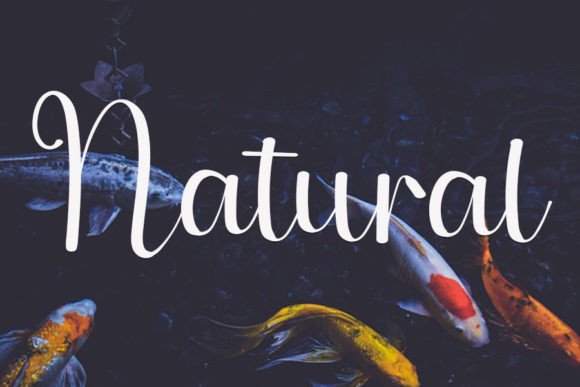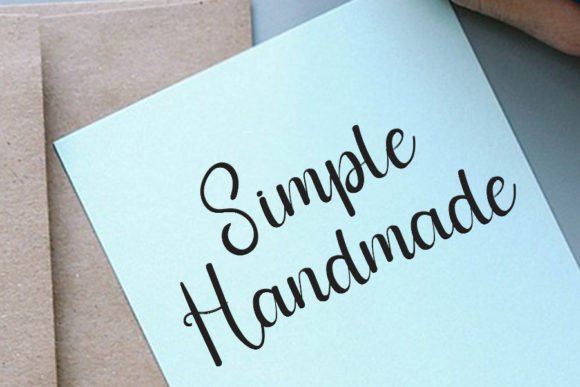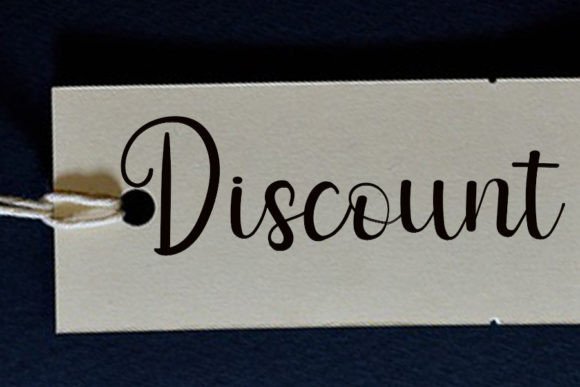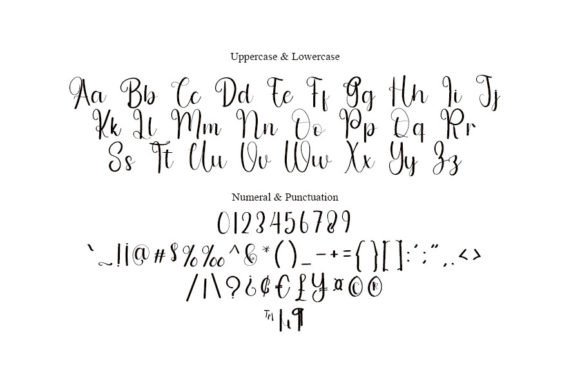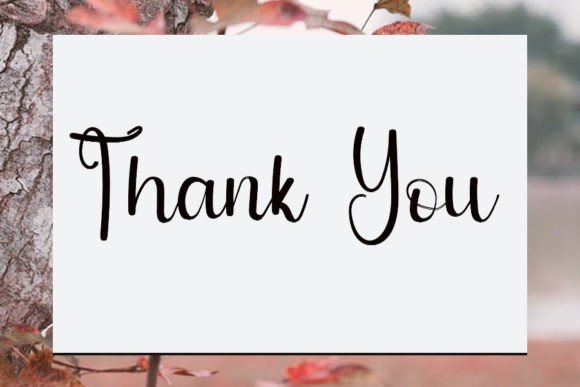
Discover the Perfect Blend of Nature and Design
Have you ever sat down to brainstorm a new project, feeling the creative juices flowing and the inspiration pouring in? That’s exactly what happened to the designers behind the Beautiful Nature Font. As they sought to create a typeface that would transport readers to a world of serenity and beauty, they drew inspiration from the classic calligraphy of the past.
The result is a stunning handwritten font that perfectly balances elegance and modernity. With its spotless form and varied lettering, the Beautiful Nature Font is the perfect addition to any project looking to add a touch of sophistication and charm. Whether you’re a seasoned designer or just starting out, this font is a valuable asset that will elevate your work to new heights.
Beautiful Nature Font Key Features
- Unique Characteristics: The Beautiful Nature Font features hand-drawn elements, intricate details, and a natural, earthy feel that evokes a sense of serenity and calmness.
- Font Weight and Style: Beautiful Nature Font comes in multiple weights, from Light to Bold, and various styles, including Regular, Italic, and Bold Italic.
Beautiful Nature Font Review
When I first laid eyes on Beautiful Nature Font, I was immediately drawn to its whimsical and organic feel. ✨ The unique combination of natural elements and elegant typography makes it perfect for any project that requires a touch of serenity. The font’s versatility allows it to be used in a wide range of applications, from logos and branding to posters and social media graphics.
The Beautiful Nature Font also features a wide range of characters, including Latin, Cyrillic, and Greek alphabets, making it accessible to designers and writers from diverse backgrounds. Additionally, the font is fully scalable, ensuring that it looks great on both small and large screens. ✨
While Beautiful Nature Font has many great qualities, there are a few limitations to consider. ⚠️ The font may not be suitable for projects that require a bold or modern look, as its organic feel may come across as too rustic or old-fashioned. Additionally, some users may find the font’s irregularities and imperfections distracting, especially in large blocks of text.
Overall, I think Beautiful Nature Font is a great addition to any designer’s toolkit. Its unique blend of natural elements and elegant typography makes it perfect for projects that require a touch of serenity and sophistication. While it may not be suitable for every project, I think it’s definitely worth considering for any design that needs a little bit of magic.
- Unique blend of natural elements and elegant typography
- Perfect for projects that require a touch of serenity and sophistication
- Wide range of characters, including Latin, Cyrillic, and Greek alphabets
- Fully scalable, ensuring great results on small and large screens
- May not be suitable for projects that require a bold or modern look
- May be distracting for users who prefer a more uniform font
Beautiful Nature Font: A Practical Application Guide
For the most effective use of the Beautiful Nature Font, consider the following tips:
- Pair it with earthy colors to enhance its natural theme.
- Use it for titles and headings to create visual hierarchy.
- Experiment with different font sizes and styles to add depth to your design.
The Beautiful Nature Font is perfect for:
- Outdoor-themed designs, such as park brochures or nature-inspired posters.